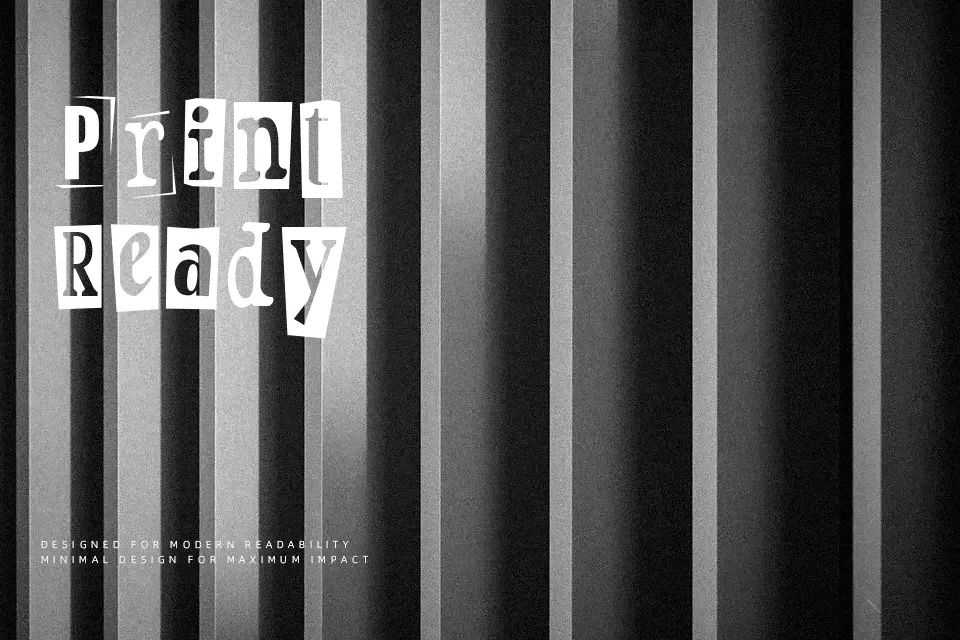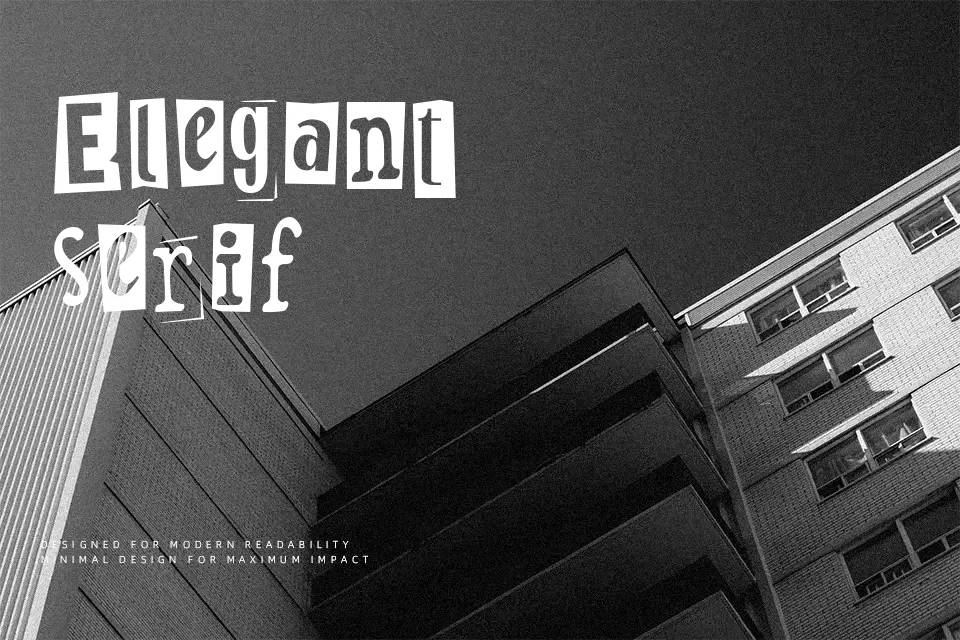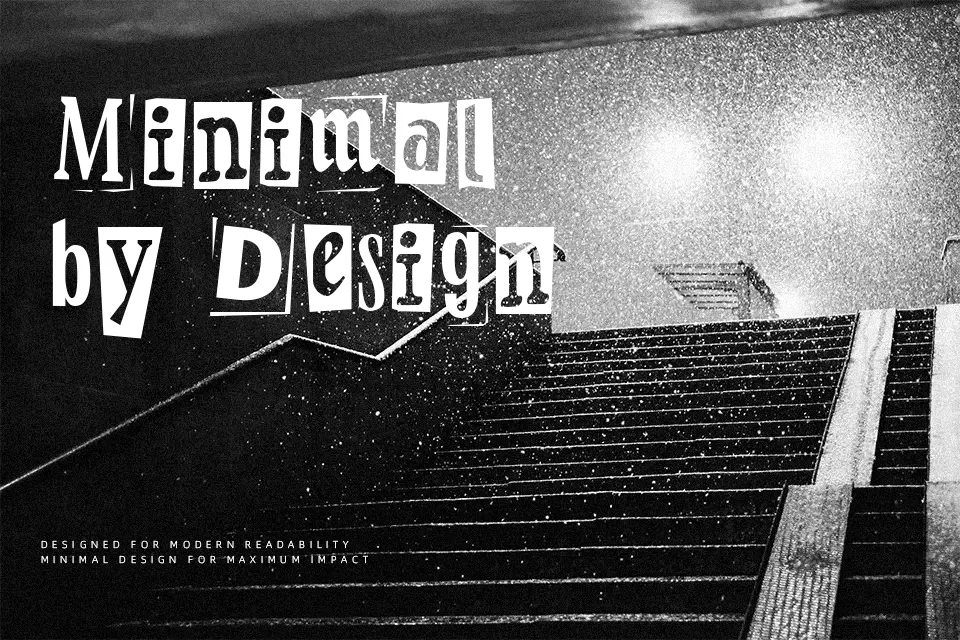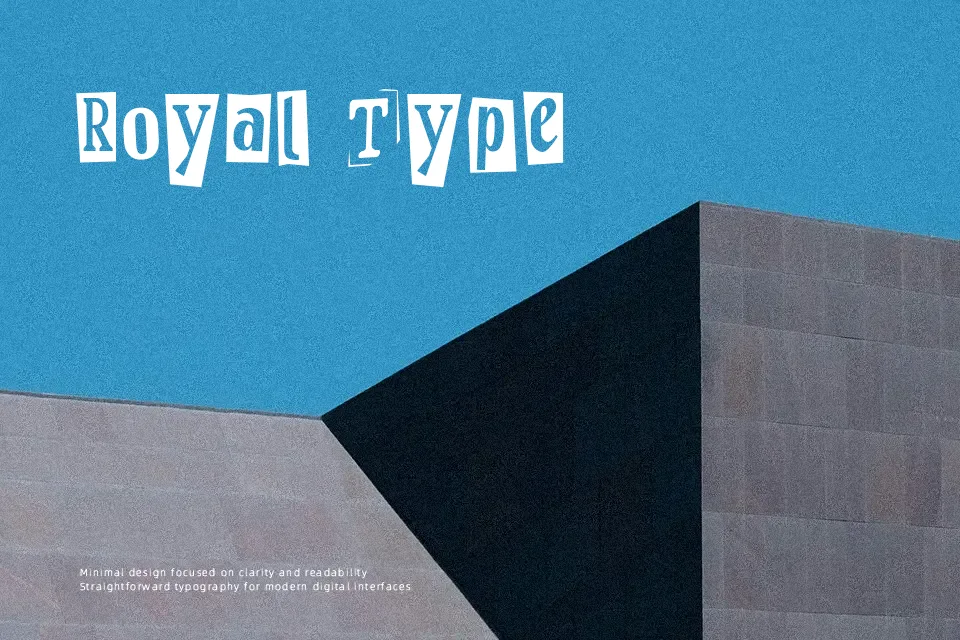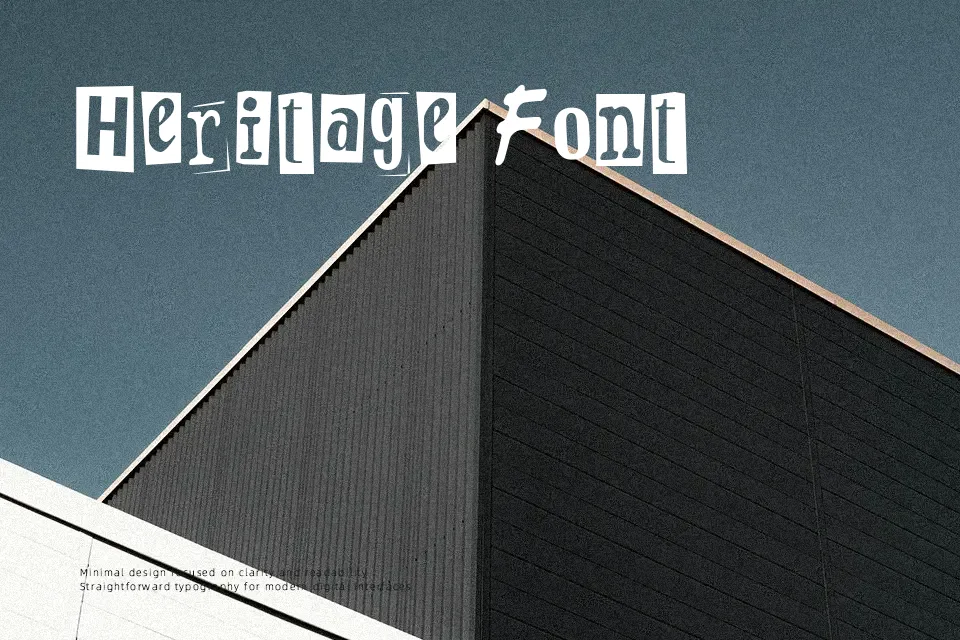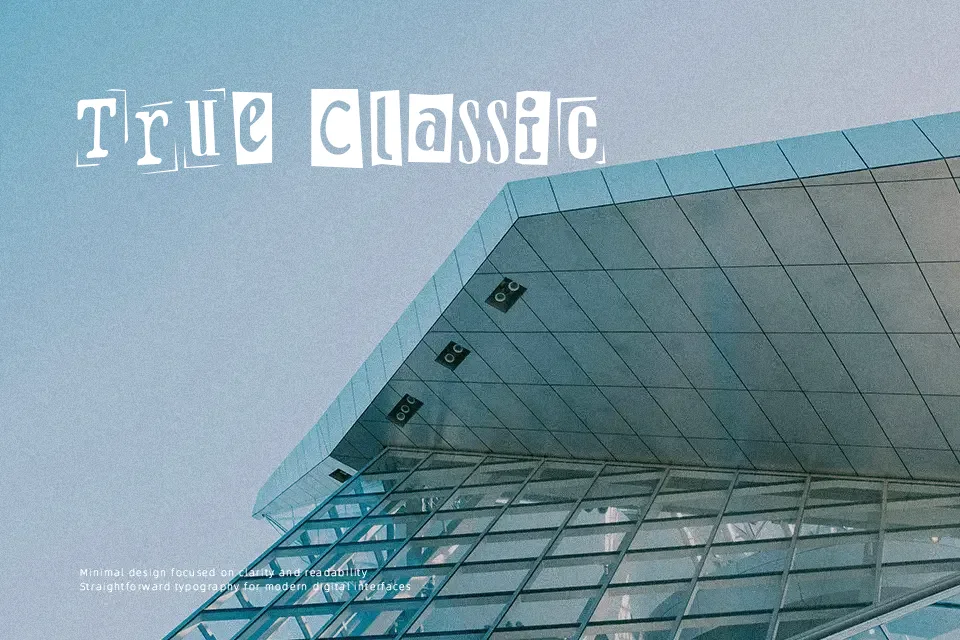
Retroma Vibes Font
Retroma Vibes Font features highly distorted letterforms with erratic stroke boundaries and uneven visual proportions that instantly capture a sense of raw energy. The chaotic stroke style includes deliberate imperfections, while the varied character widths create an unpredictable but engaging rhythm across headlines. Spacing remains relatively open to prevent the heavily textured glyphs from bleeding into each other. The intentional distortion makes the letterforms difficult to decode in continuous text, significantly reducing continuous reading comfort. These dense decorative details become less effective at smaller sizes, making the typeface highly specialized. This striking display design performs best in grunge music packaging, retro streetwear graphics, and dramatic event posters where maximizing visual impact overrides the need for traditional legibility.
grunge music album covers
retro streetwear branding
dynamic festival posters
skateboard deck graphics
Perfect for branding, fashion, and gaming, with a dynamic and decorative style.